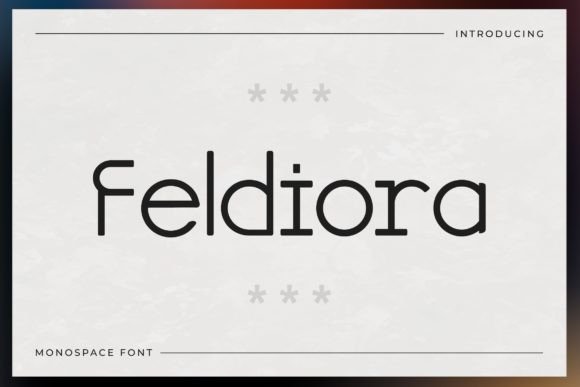
Feldiora Font: Elevate Your Designs with a Unique Monospace Display Font
Are you tired of using the same old fonts in your designs? Look no further than Feldiora, a breathtaking monospace display font that’s perfect for a wide variety of creative projects. With its unique and striking appearance, Feldiora is sure to make your designs stand out from the crowd.
What Makes Feldiora Special?
Feldiora is a monospace display font, which means that it’s designed to make a bold statement in your designs. Its fixed width and sleek lines give it a modern and edgy look that’s perfect for headlines, titles, and other display text. But what really sets Feldiora apart is its unique character set, which includes a wide range of glyphs and ligatures that add an extra layer of depth and interest to your text.
Perfect for a Wide Range of Designs
Feldiora is a versatile font that’s perfect for a wide range of designs, from posters and flyers to logos and branding materials. Its bold and eye-catching appearance makes it ideal for headlines and titles, while its sleek lines and modern look make it suitable for tech and digital designs. Whether you’re a graphic designer, a crafty DIY enthusiast, or a marketing professional, Feldiora is a great addition to your font library.
- Use Feldiora as a headline font to add a bold and eye-catching touch to your designs.
- Experiment with different font sizes and colors to create visual interest and hierarchy.
- Combine Feldiora with other fonts to create a unique and striking typography combination.
- Use the glyphs and ligatures to add intricate details and flourishes to your text.
Why Designers and Crafters Love Feldiora
Feldiora has quickly become a favorite among designers and crafters, and it’s easy to see why. Here are just a few reasons why Feldiora is a must-have font:
- Unique and striking appearance that’s perfect for making a statement.
- Versatile and suitable for a wide range of designs.
If you’re looking for a unique and breathtaking font to elevate your designs, look no further than Feldiora. With its striking appearance, versatile character set, and PUA encoding, Feldiora is the perfect addition to any design library. Whether you’re a seasoned designer or a crafty DIY enthusiast, Feldiora is sure to inspire your creativity and take your designs to the next level.